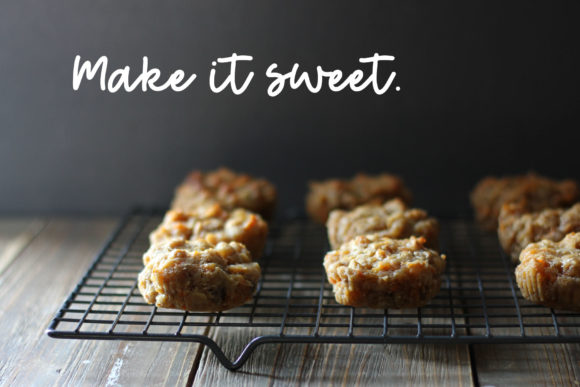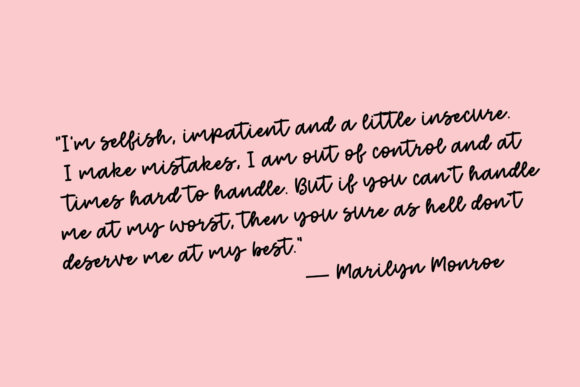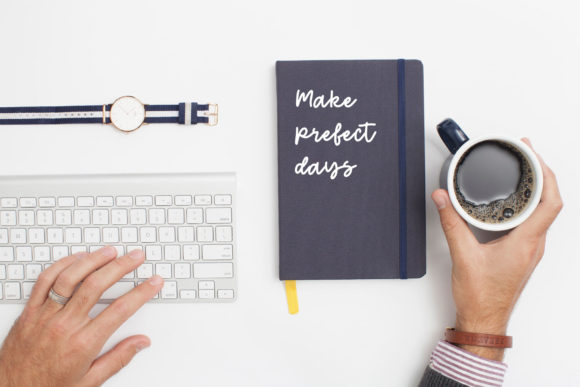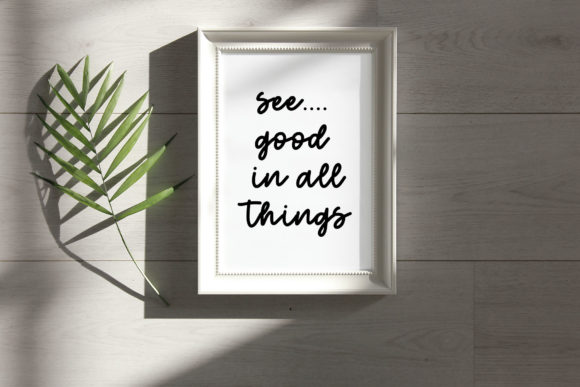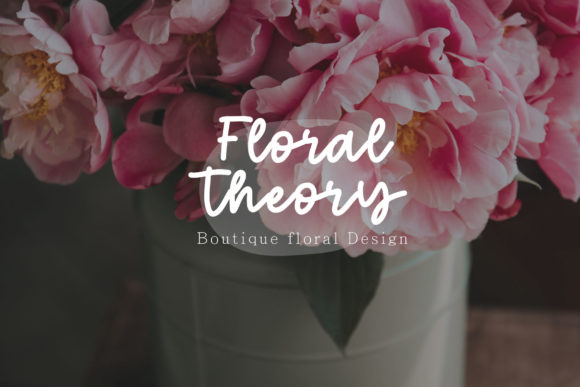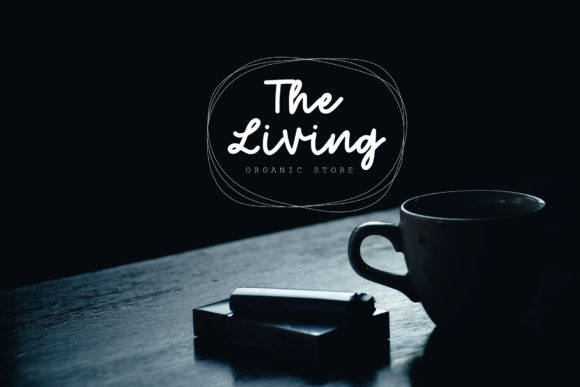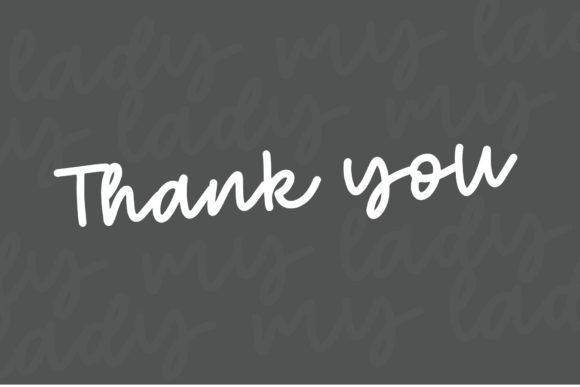
My Lady Font
About My Lady Font
Combining simple letters with an authentic elegance, My Lady is the perfect font to add a sophisticated touch to any design project!